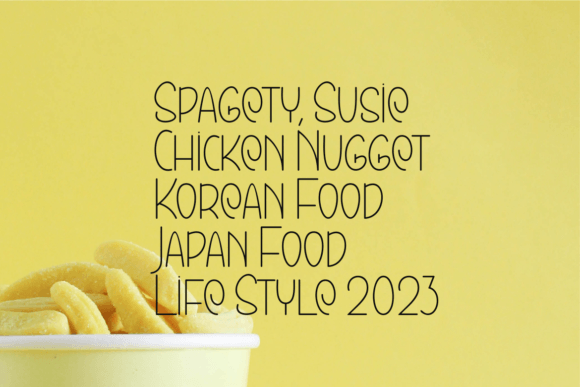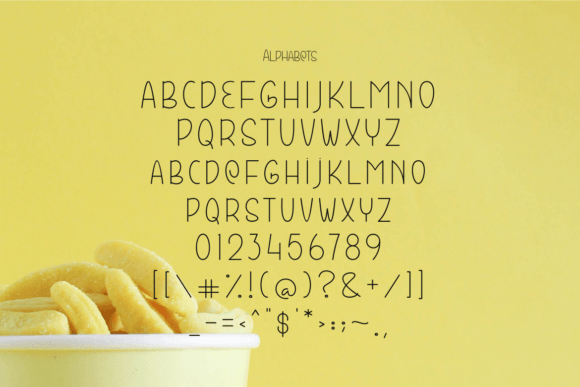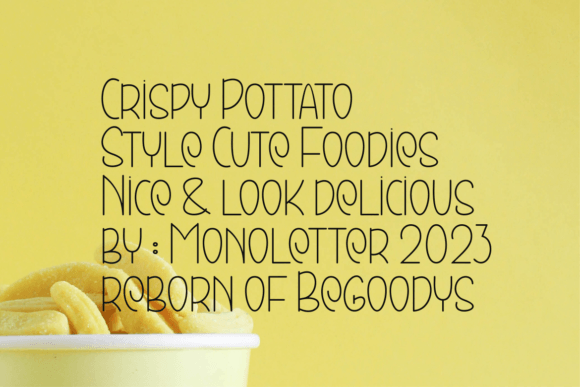
Introduction to Begoodys Reborn Font
Begoodys is a quirky, thin-lettered sans serif font.
Key Features of Begoodys Reborn Font
Why Choose Begoodys Reborn Font?